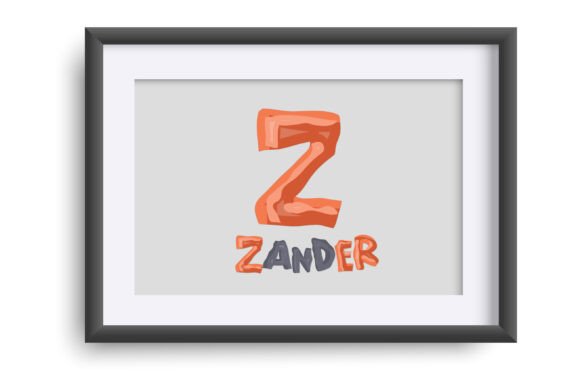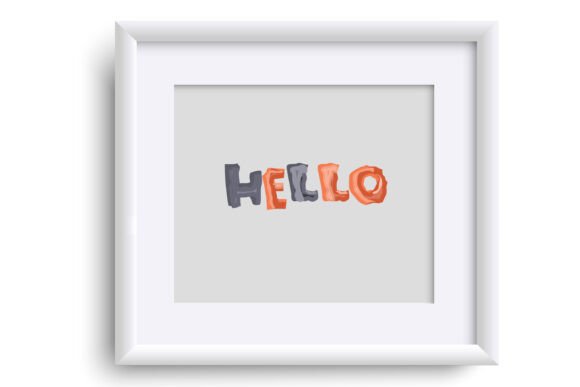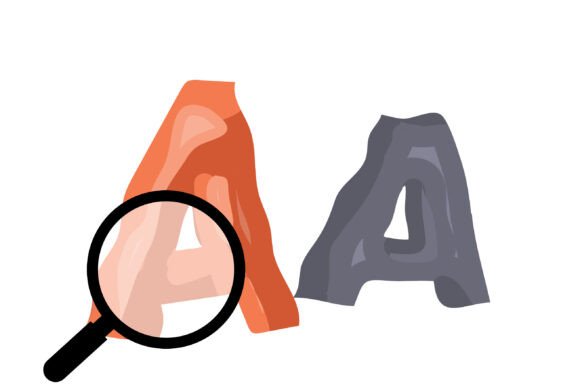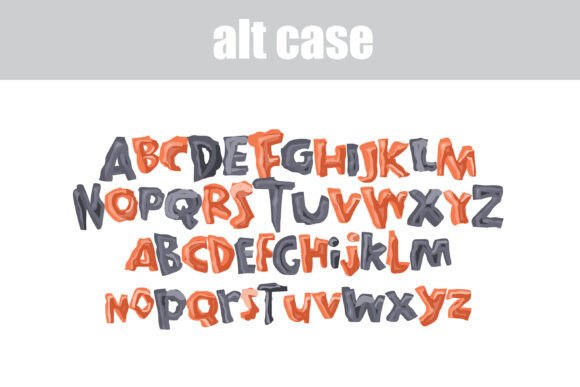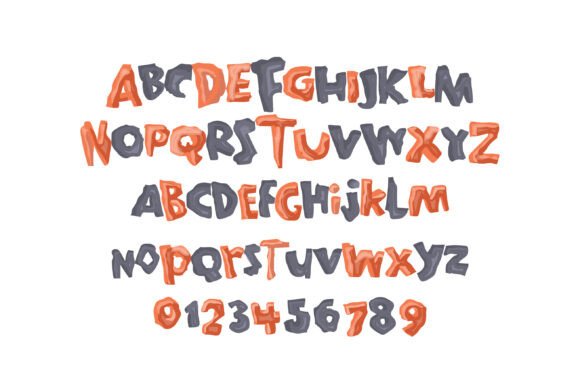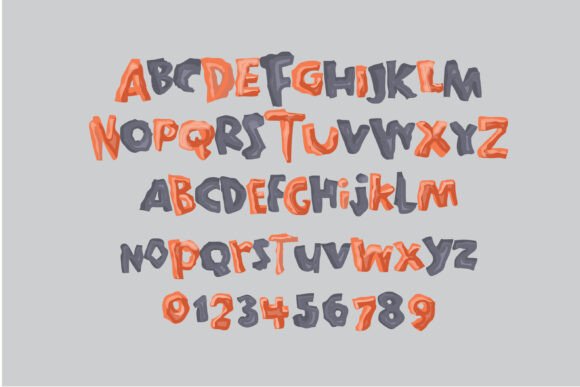
Introduction to Gravestones Font
Have you ever found yourself brainstorming a creative project, but struggling to find the perfect design element to bring it to life? I know I have. For me, it’s often the small details that can make all the difference between a good design and a great one. And that’s where fonts come in – the unsung heroes of the design world. A high-quality font can elevate an entire project, adding depth, emotion, and even a touch of magic. That’s why I’m excited to introduce you to the Gravestones Font, a stunning full-color font that’s sure to be a valuable addition to any designer’s toolkit.
With its spooky stone-like aesthetic and Halloween-inspired color palette, the Gravestones Font is the perfect resource for designers looking to add a touch of whimsy to their next creative project. Whether you’re working on a poster, title, or display, this font is sure to bring a unique and eye-catching element to your design. And the best part? It’s available for free download, making it a fantastic resource for designers on a budget.
But what really sets the Gravestones Font apart is its versatility. With an alt version available through your system’s character map, you can access additional colors for each letter, giving you endless possibilities for customization. Plus, its compatibility with popular design software like Adobe products and Silhouette Studio makes it a breeze to use. Whether you’re a seasoned pro or just starting out, the Gravestones Font is a must-have resource for any designer looking to take their projects to the next level.
Key Features of Gravestones Font
- High-quality, intricate design ideal for creative projects
- Comes with a transparent background, allowing for easy customization
- Designed with a unique, ornate style reminiscent of old gravestones
Honest Review: Gravestones Font
I recently had the chance to explore the Gravestones Font, and I must say it’s been a fascinating experience. As a designer, I’m always on the lookout for high-quality design resources that can elevate my creative projects.
- ✨ Unique and quirky design aesthetic that’s perfect for adding a touch of whimsy to your creative project
- ✨ High-quality design with transparent background, making it easy to use in a variety of applications
- ⚠️ Limited character set, which may not be suitable for longer texts or more complex designs
- ⚠️ Not ideal for professional or formal applications, as it’s more suited to creative and casual projects
Overall, I think the Gravestones Font is a great addition to any designer’s toolkit. While it may have some limitations, its unique design aesthetic and high-quality design make it a valuable resource for creative projects. If you’re looking for a fun and quirky font to add some personality to your design, the Gravestones Font is definitely worth checking out.
Getting the Most Out of Gravestones Font
To get the most out of Gravestones Font, use it on a transparent background to create a sense of depth. Experiment with different font sizes and styles to add visual interest to your design.
Common Use Cases for Gravestones Font
Gravestones Font is perfect for creating spooky or vintage-inspired designs, such as:
1. Halloween decorations.
2. Horror movie posters.
3. Vintage-themed invitations.